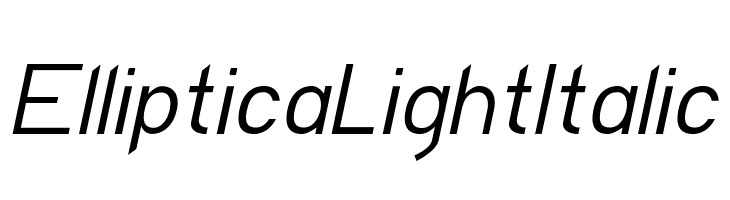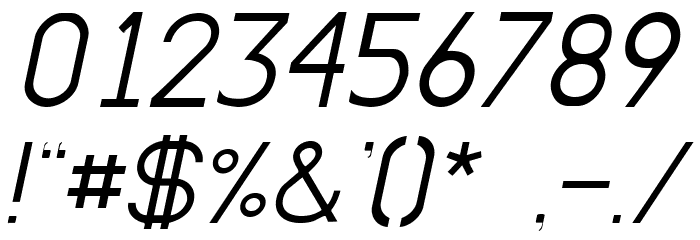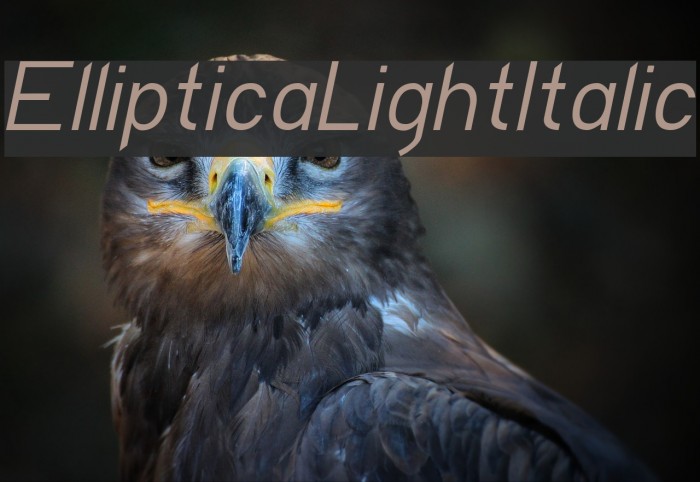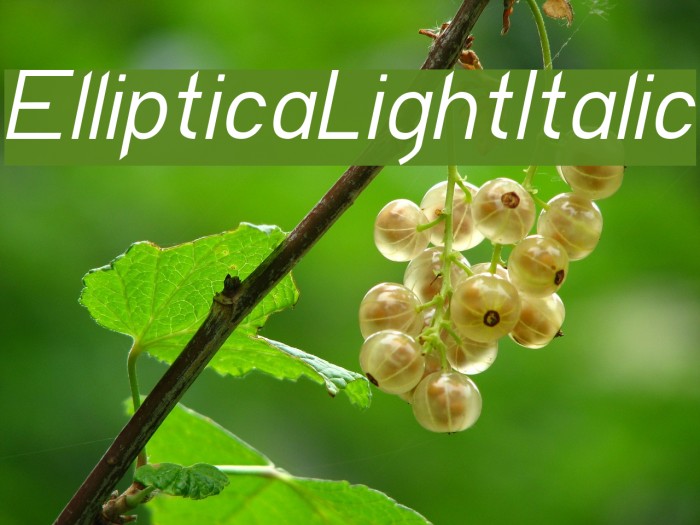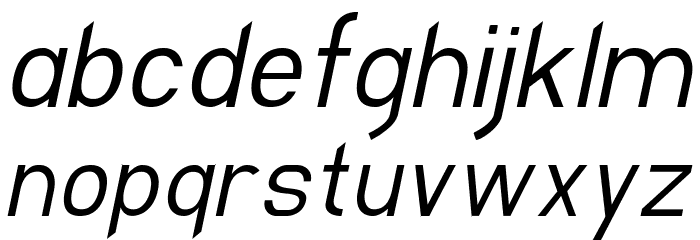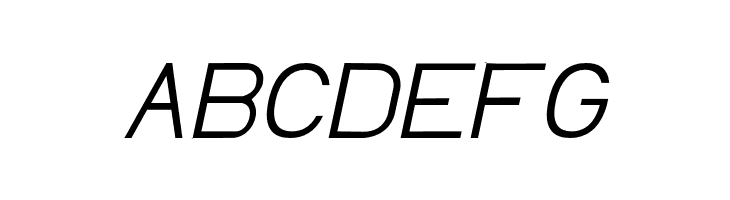
EllipticaLightItalic Font
EllipticaLightItalic Description
This font features a sleek, modern design with a light weight and italic style. The characters are slightly condensed, giving it a streamlined appearance. The strokes are consistent in thickness, providing a uniform look across all characters. The uppercase letters are tall and elegant, while the lowercase letters maintain a smooth, flowing form. The numerals are clear and easy to read, and the special characters are well-defined, making this font versatile for various applications.
A sleek, modern, light italic font with consistent stroke thickness from Uncategorized fonts.